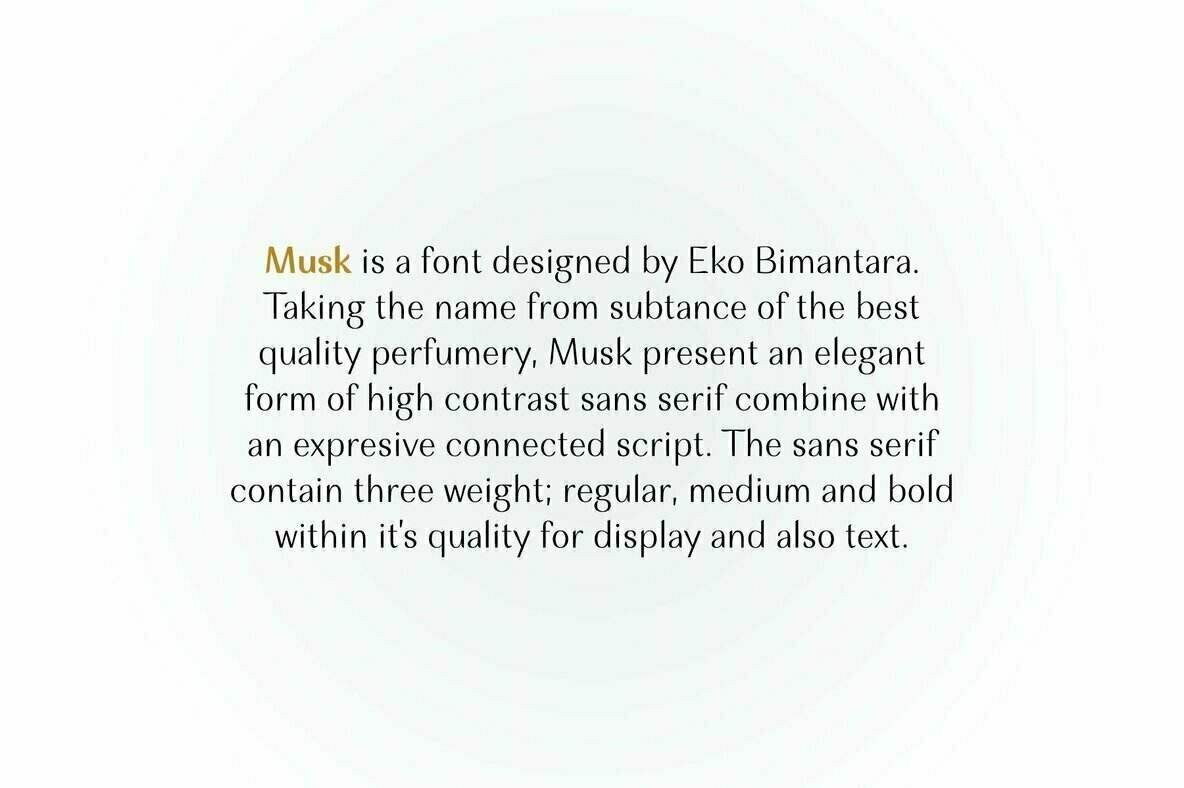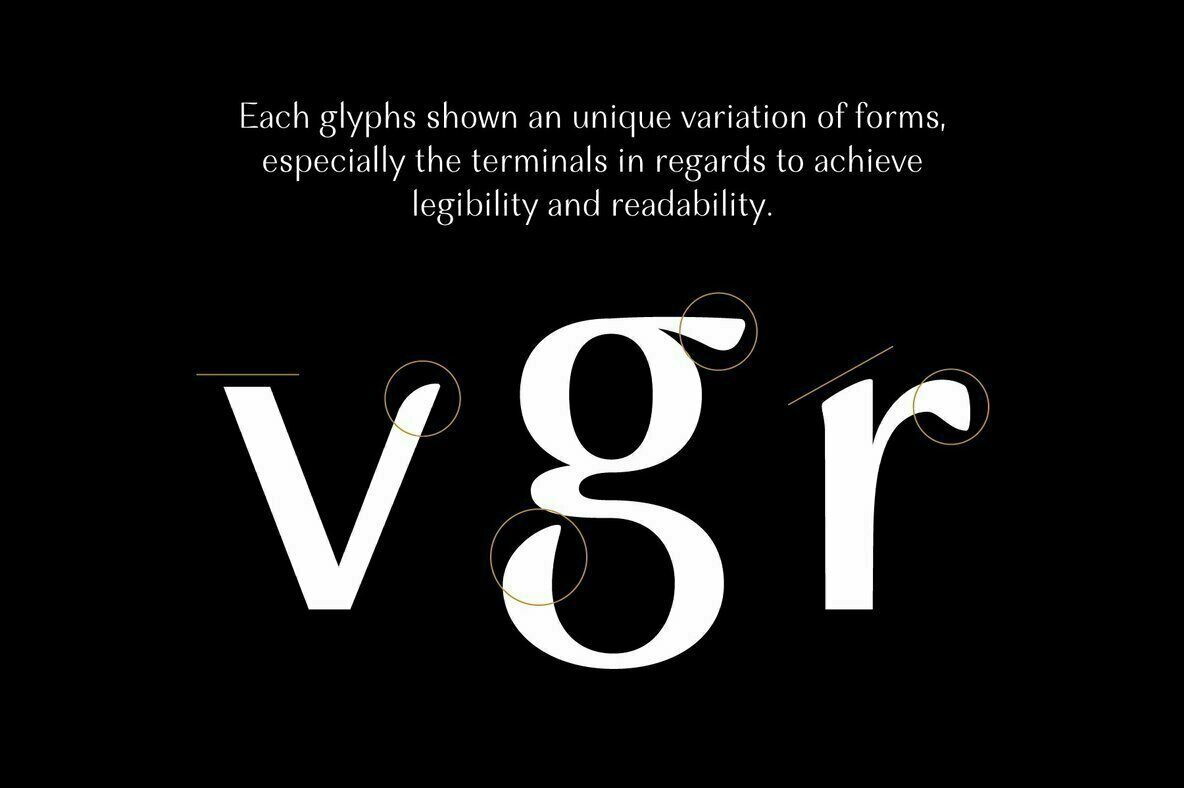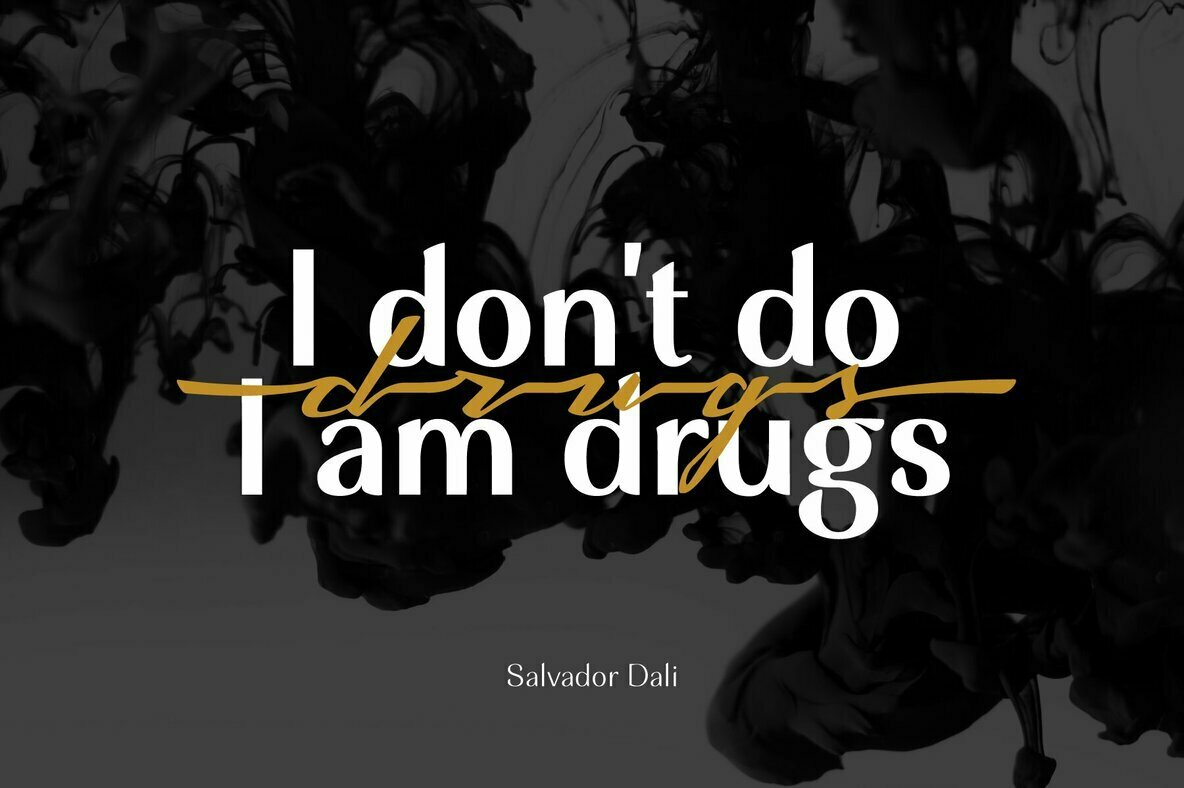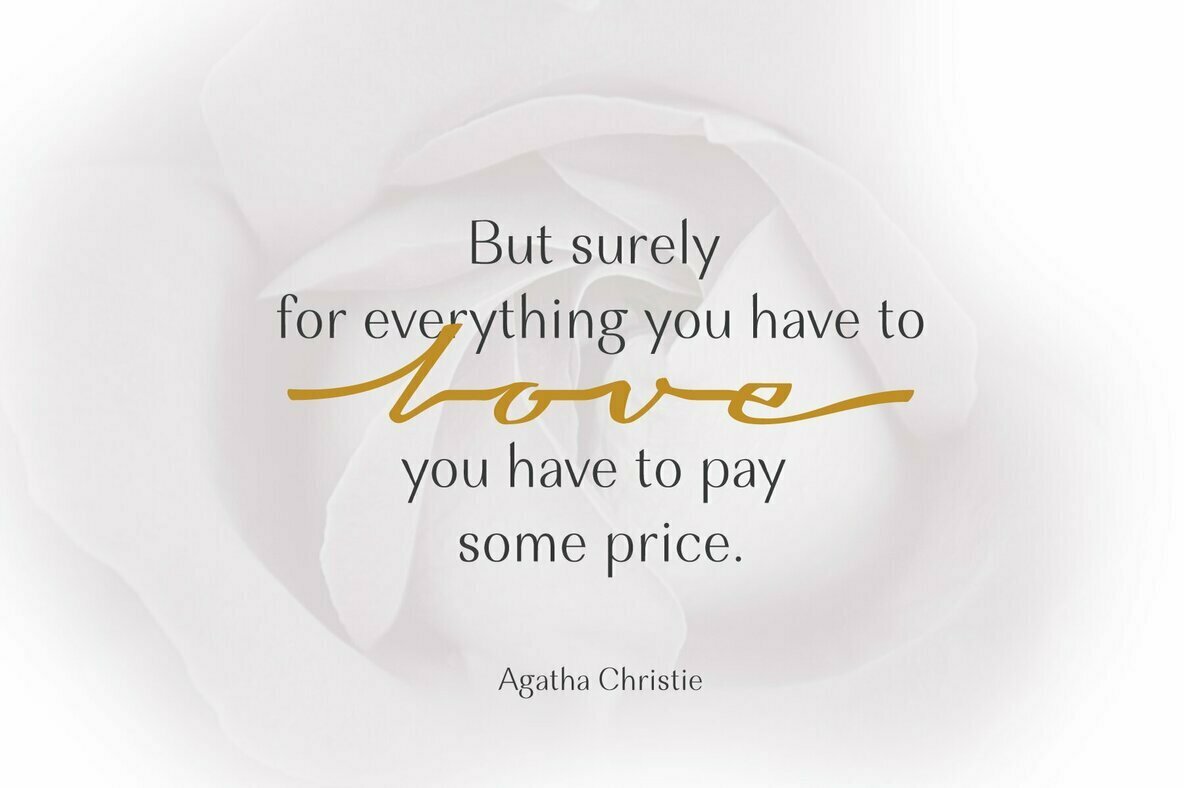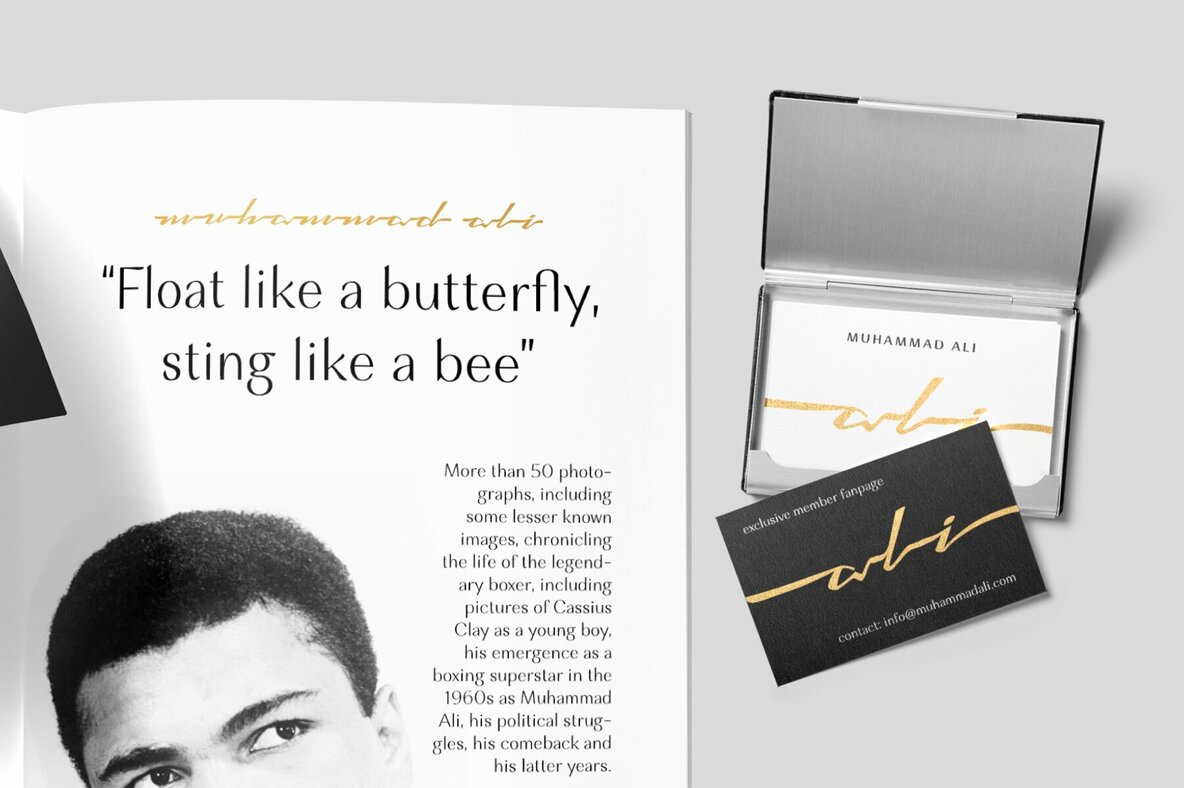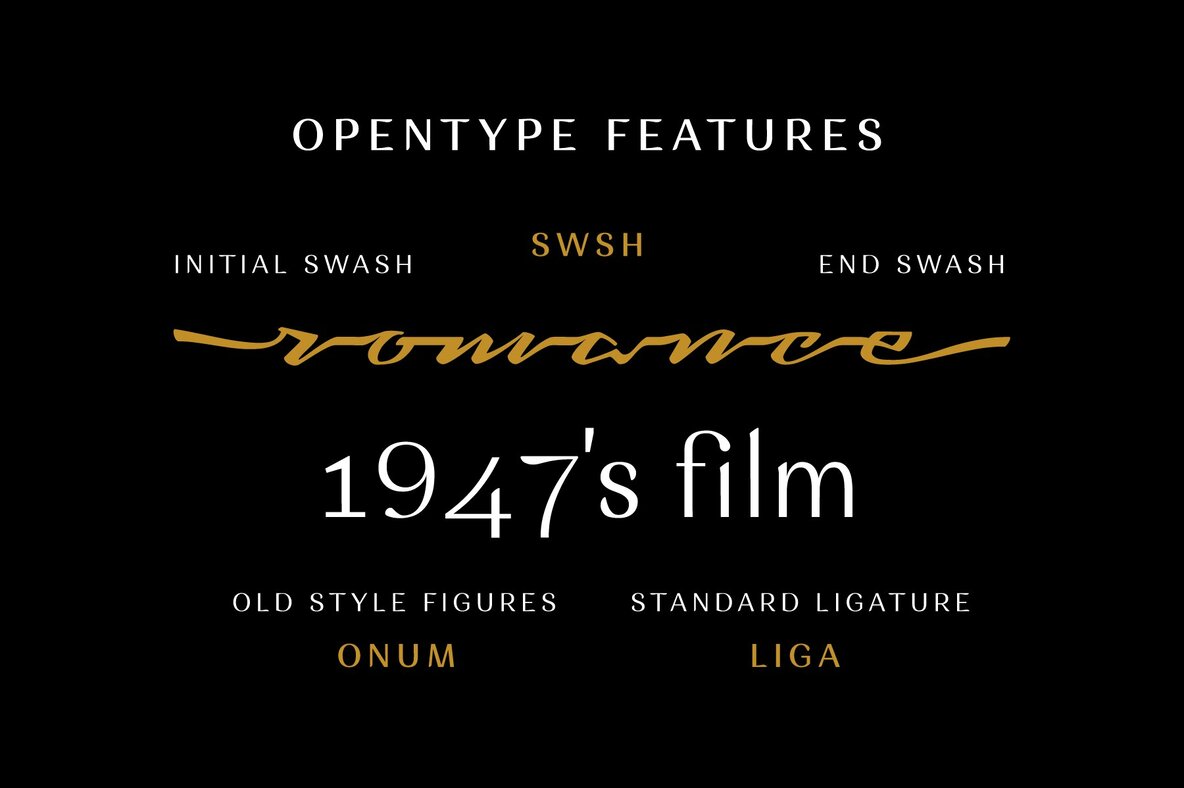
Musk Font
Taking the name from substance of the best quality perfumery, Musk present an elegant form of high contrast sans serif combine with an expressive connected script. The sans serif contain three weight; regular, medium and bold within it’s quality for display and also text. Each glyphs shown an unique variation of forms, especially the terminals in regards to achieve legibility and readability.
The sans serif contain three weight; regular, medium and bold within it’s quality for display and legible for body text. With over than 240 glyphs. Some open type features contain in Musk sans; old style figures and standard ligature and the Musk script contain swash.